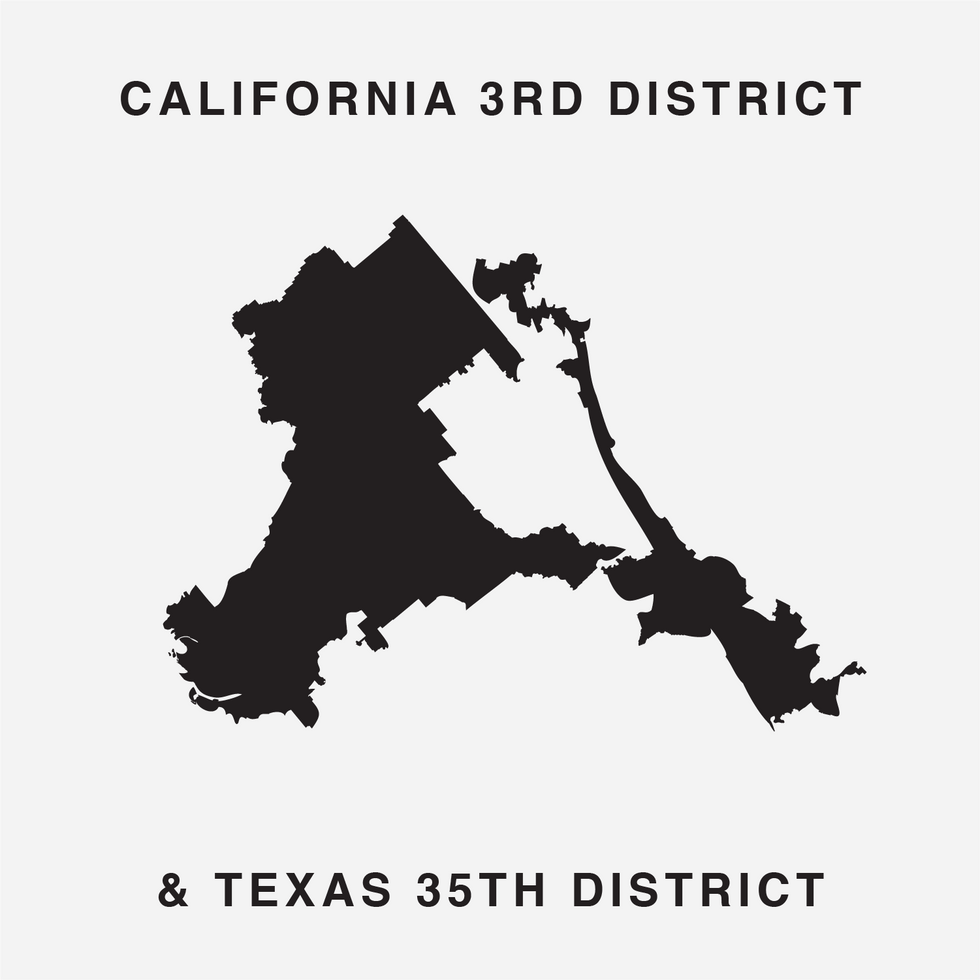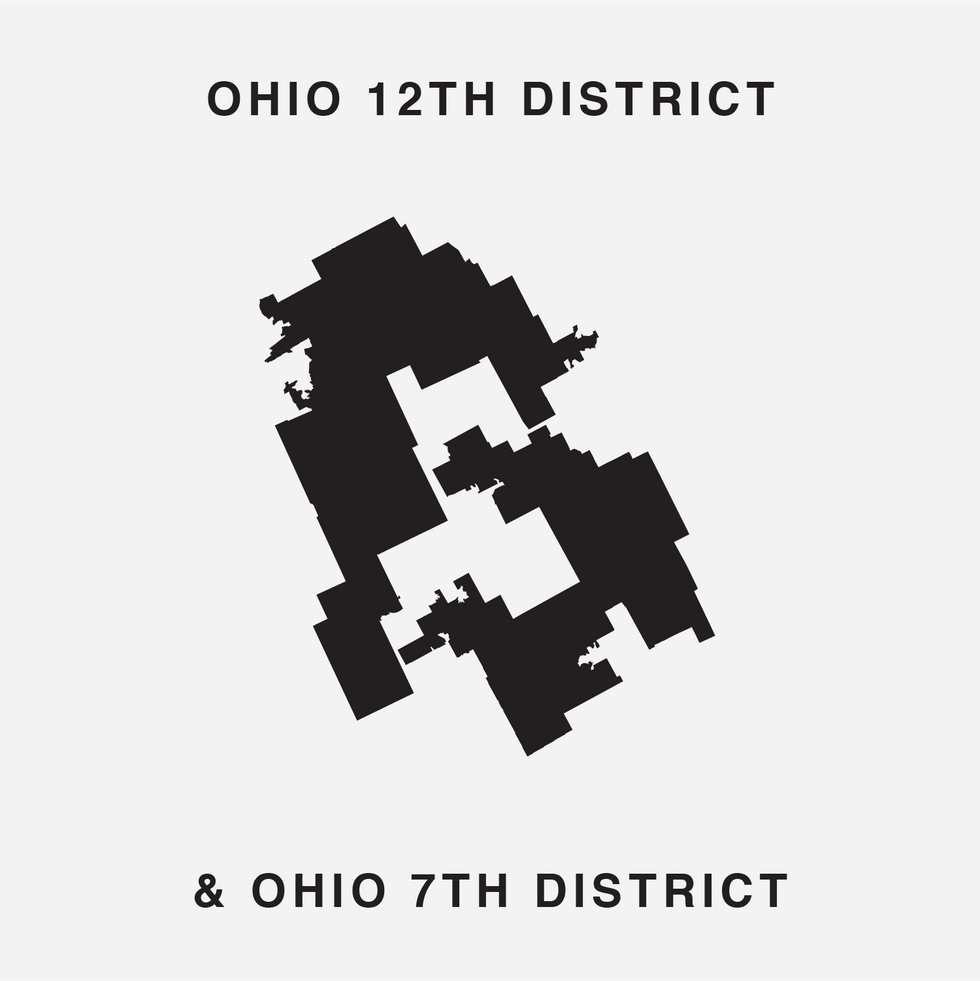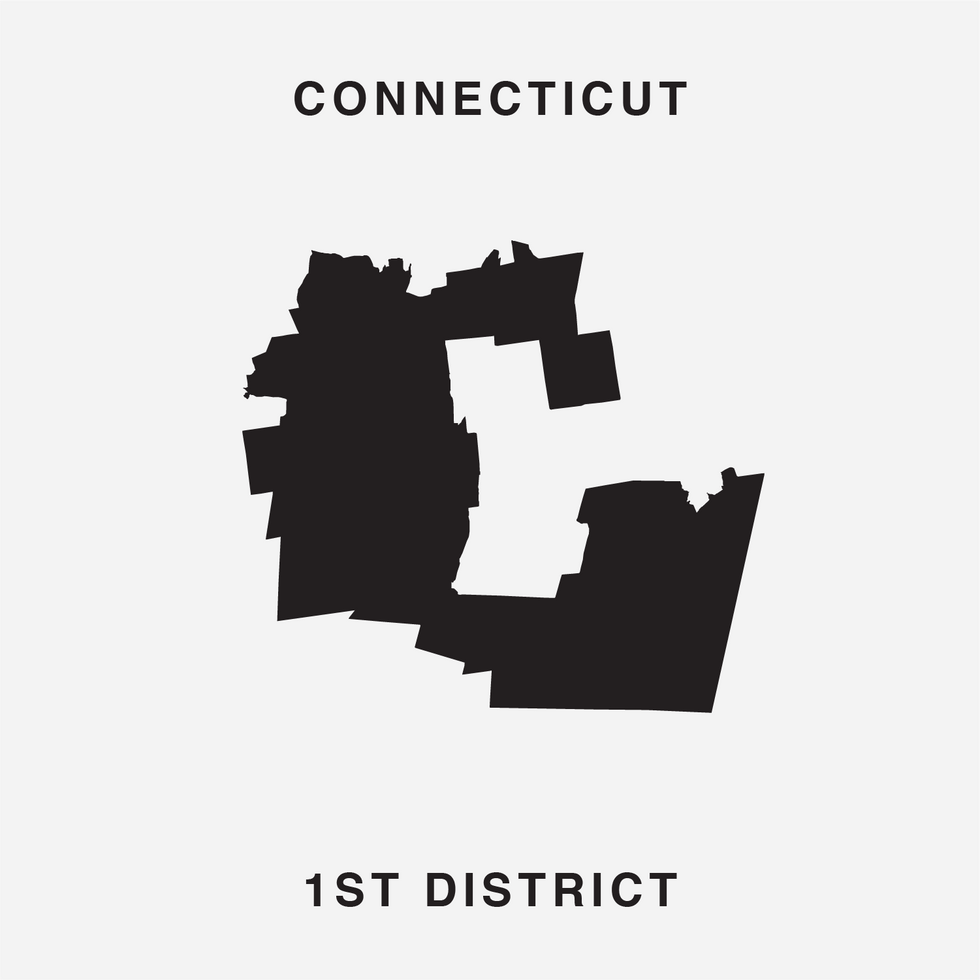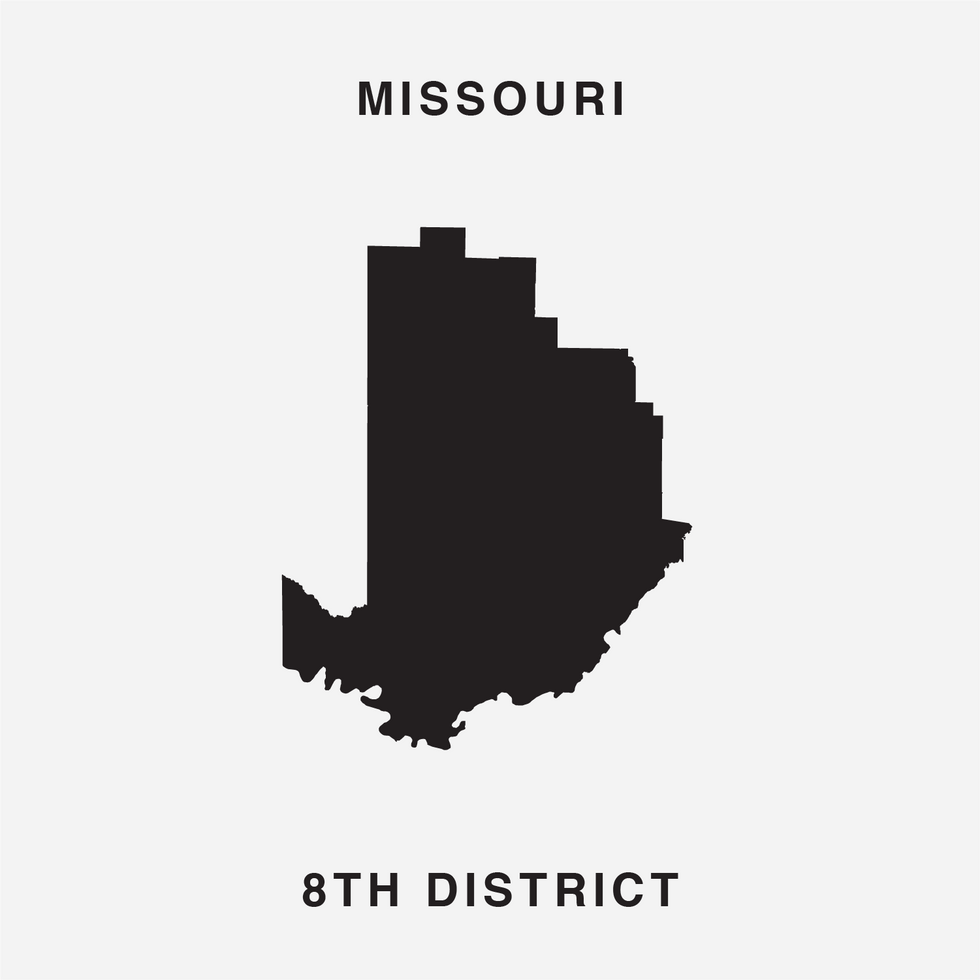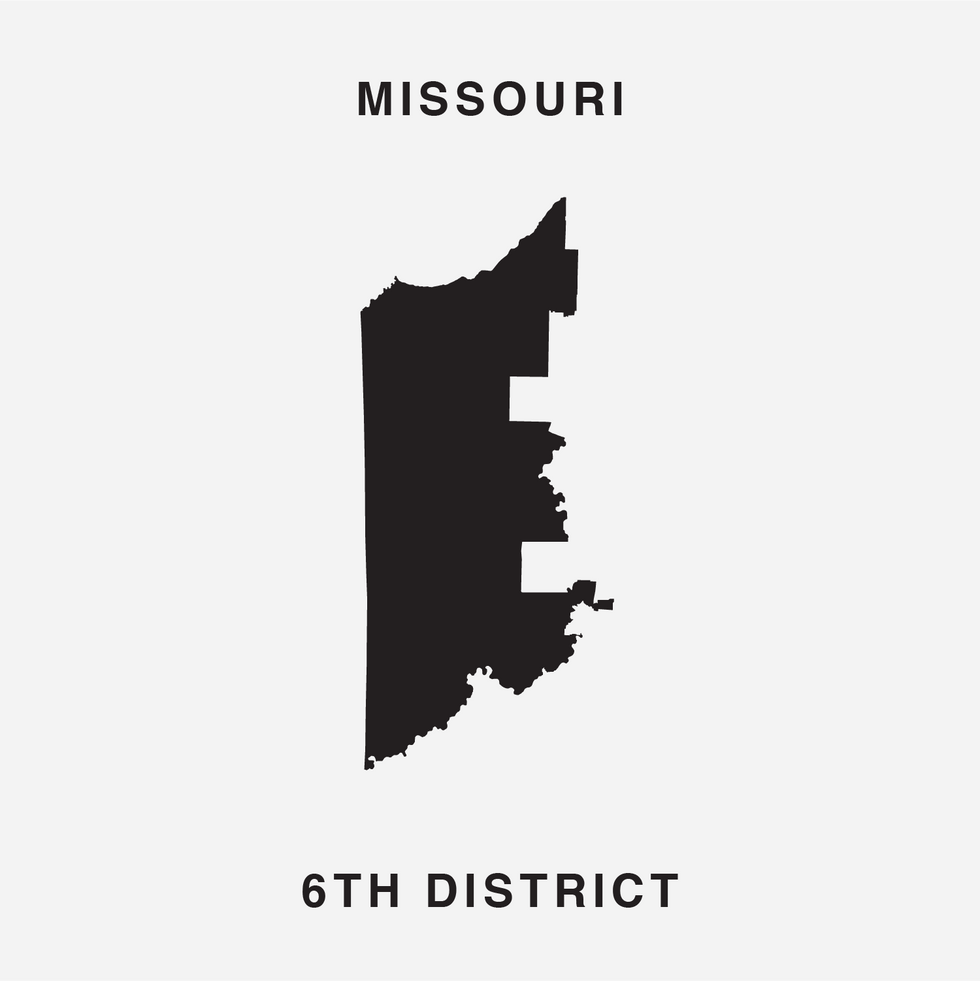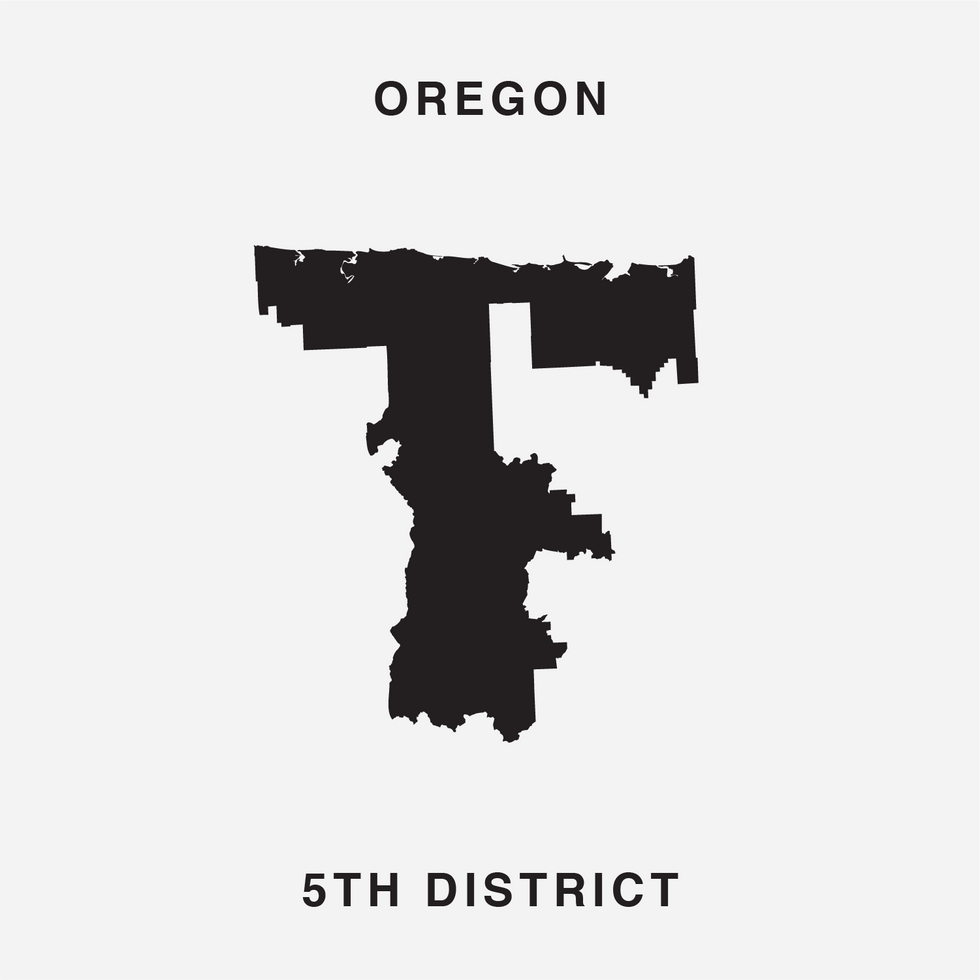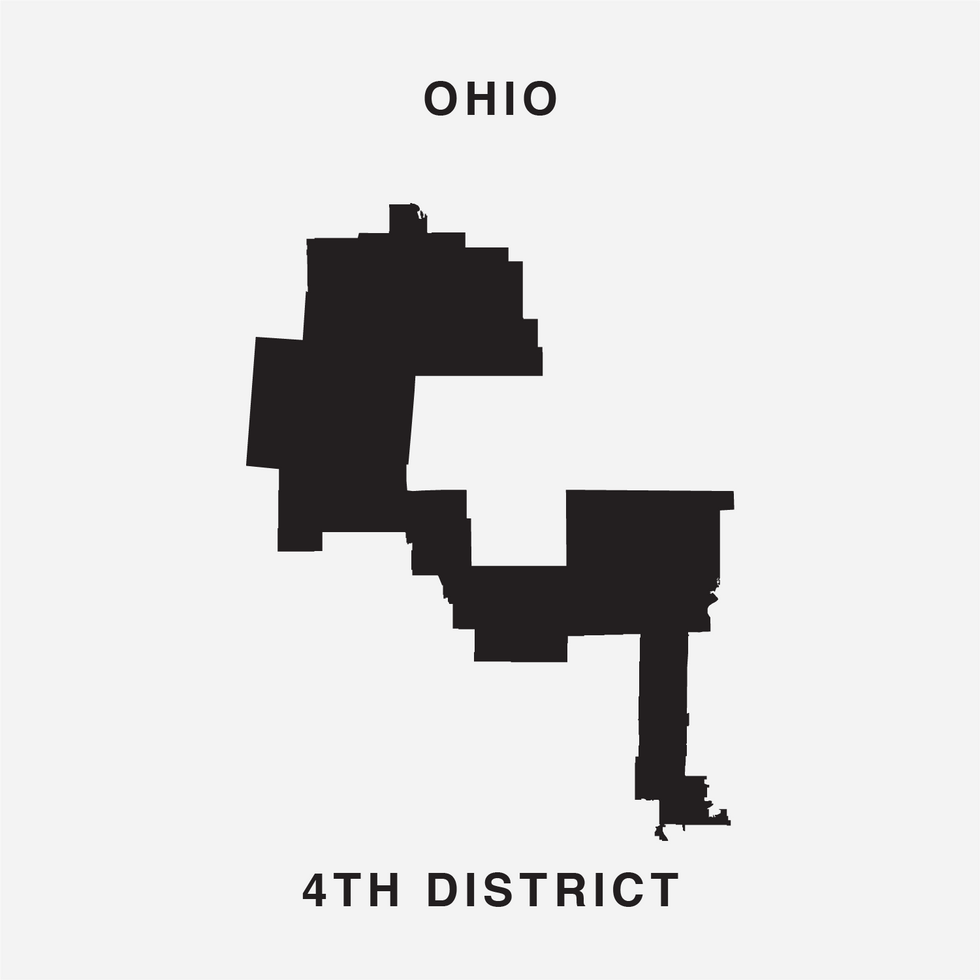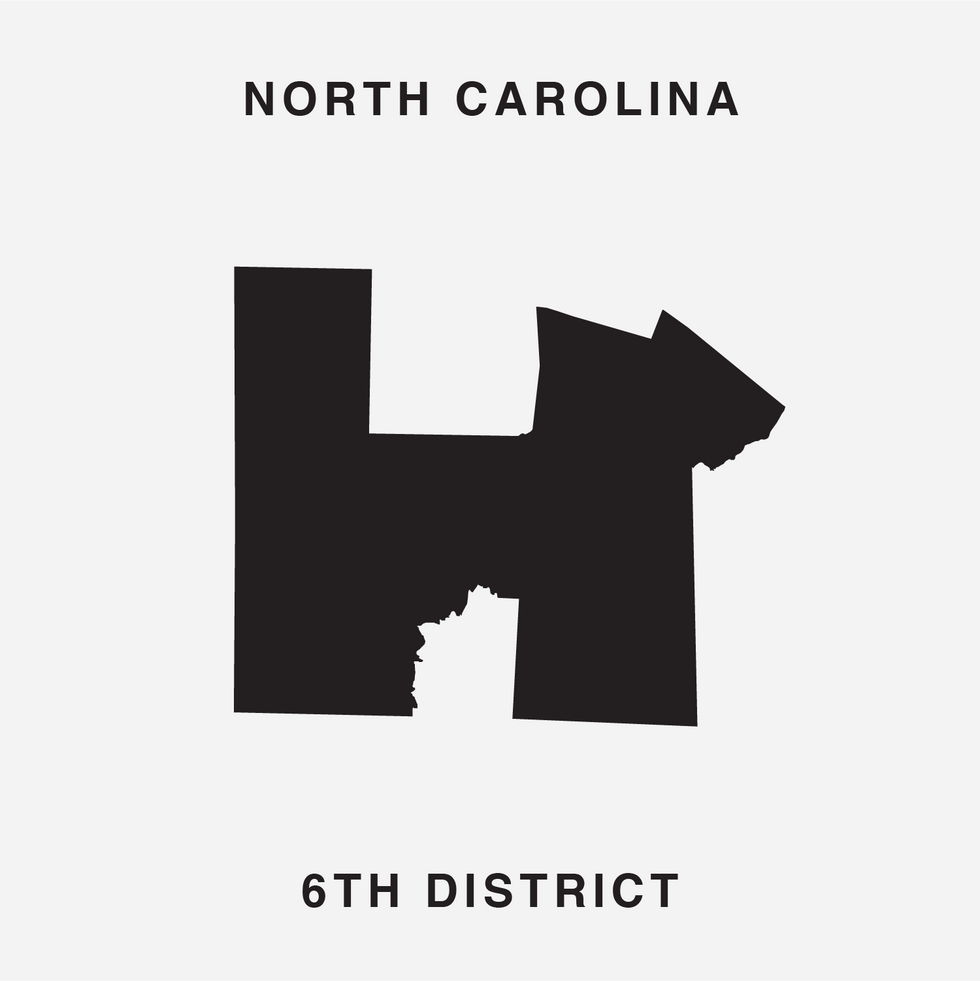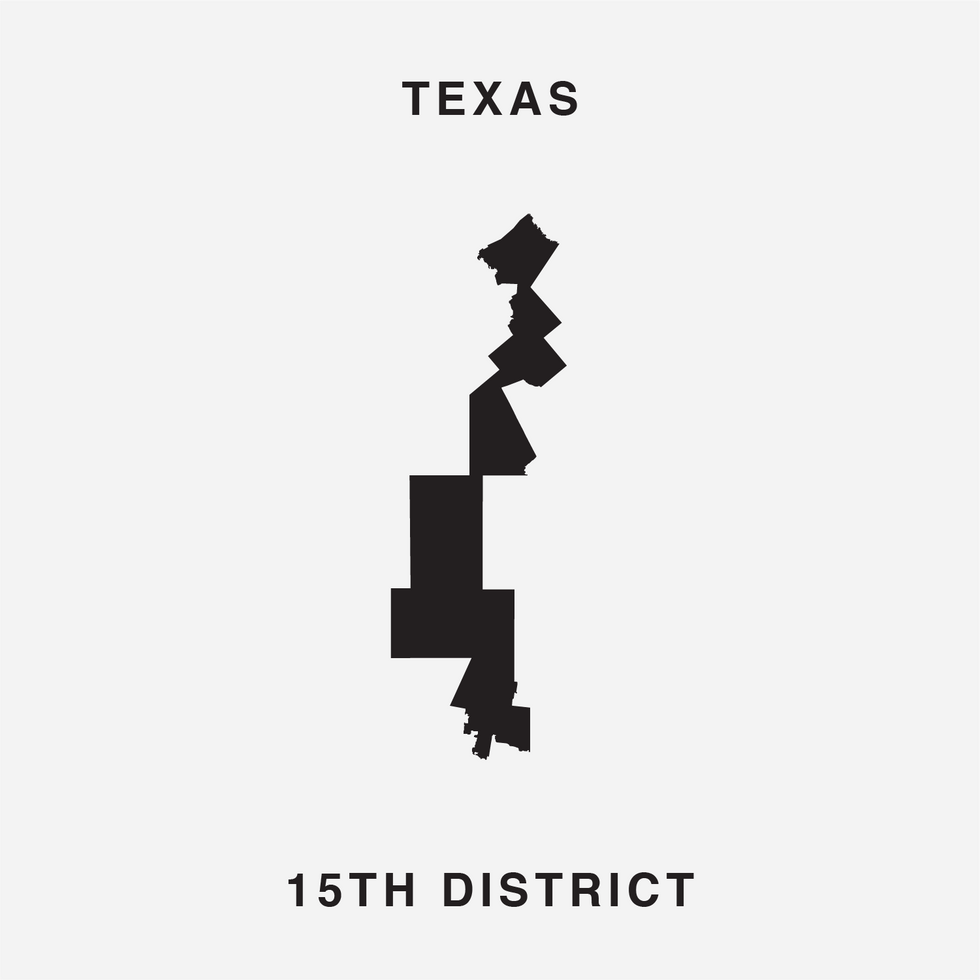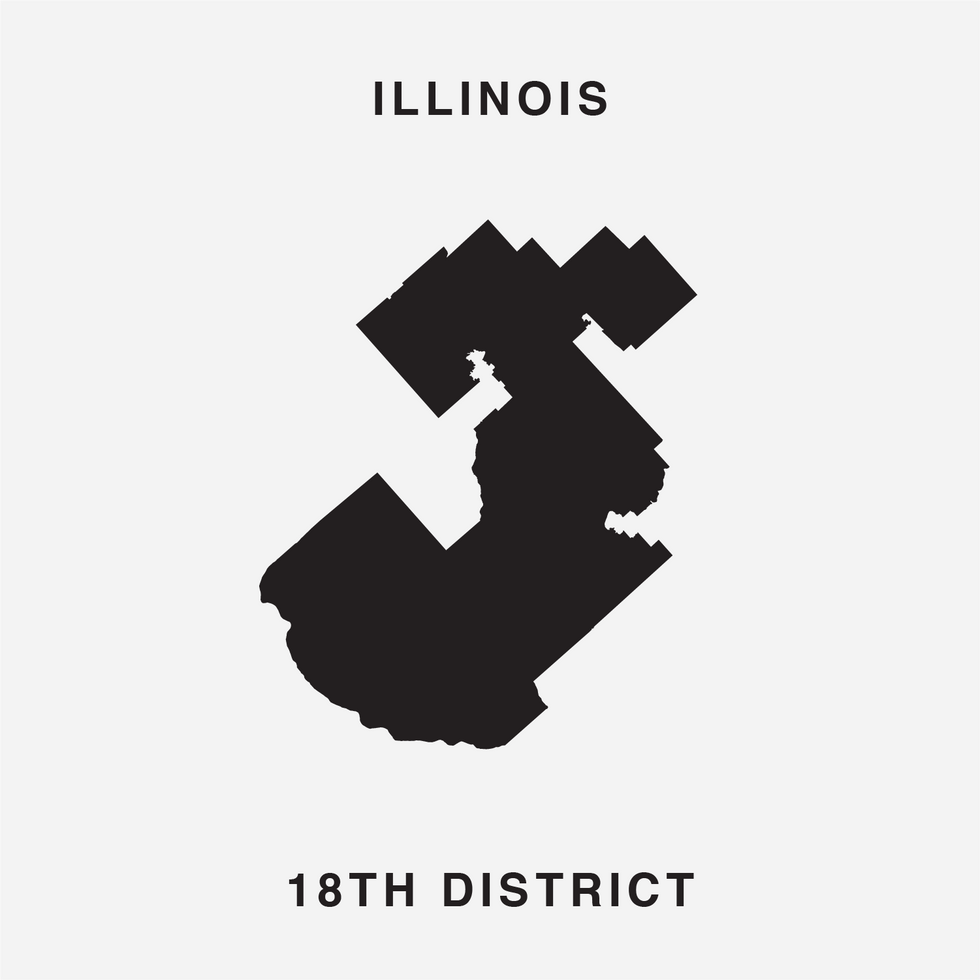
Expressing your anger at gerrymandering? There's a font for that.
The Gerry font comes up with all 26 letters by mashing up and rotating just 31 House districts. See our slideshow at the bottom for details.
Ugly Gerry
Plenty of congressional districts get mocked for looking like parts of a Rorschach test. But only now have some creative folks conjured up the letters A through Z.
It was hard not to see "a rabbit on a skateboard" in last decade's map for Illinois, or "Goofy kicking Donald Duck" in the Philadelphia suburbs until a few years ago, or — most famously — a salamander slithering across Massachusetts in the 19 th century map approved by Gov. Elbridge Gerry, which gave rise to the derisive term gerrymandering for such convoluted contouring.
But today's map of the House of Representatives, it turns out, contains an unsightly but still readily readable alphabet.
The letter R
Ugly Gerry
Ohio's 10th is held by Republican Michael R. Turner. Michigan's 13th is held by Democrat Rashida Tlaib.
The font was unveiled at the end of July by Chicago digital creatives Ben Doessel, James Lee and Kevin McGlone. Their inspiration, they said, was realizing their home congressional district, the Illinois 4th, looked quite a bit like a letter U – albeit one lying on its side. (To the political world it's long been the legendary "earmuffs" district, with Latino neighborhoods north and south of the Loop stitched together to comply with a federal court command that Chicago have a Hispanic-majority seat.)
After that realization, the team noticed how rotating North Carolina's rural 6th district 90 degrees turned it into a pretty good letter H. Before too long, they had come up with the other two dozen letters as well.
To finish the job, a pair of districts had to be mashed up to create five letters. But, intentionally or not, the 31 districts chosen underscore the central reality of gerrymandering: It is a bipartisan practice that's been used with remarkable effect to assure the vast majority of the 435 seats are not competitive between the parties.
The new font uses 15 districts where Republicans now appear to be prohibitive favorites to win again in November 2020 and 15 others where the Democrats are similarly safe bets. Only Ohio's 12th (the spine of the letter B) looks to be competitive, Republican Troy Balderson having won twice quite narrowly in a suburban Columbus district that President Trump also carried.
The Gerry font — which looks like a cousin of the eclectic, early '90s font Wingdings — employs districts from 16 states. And, in another potential coincidence that could prove confounding to gerrymandering critics, the three states represented most draw their maps different ways. The map for Ohio (5 seats in the front) was drawn by Republicans and the Illinois map (4) by Democrats, but the California map (also 4) was the work of an independent commission.
Congress could set a national rule, but that seems impossible in the currently divided Capitol. The House-passed political overhaul, HR 1, would require non-partisan panels to draw the congressional lines for every state, for example, but Majority Leader Mitch McConnell says the bill will never be taken up in the Senate because the Republican majority has no interest.
"To ensure the eroding of democracy isn't an issue that is lost in the news cycle," they said via email, they "concocted a creative way to keep our warped voting districts top-of-mind."